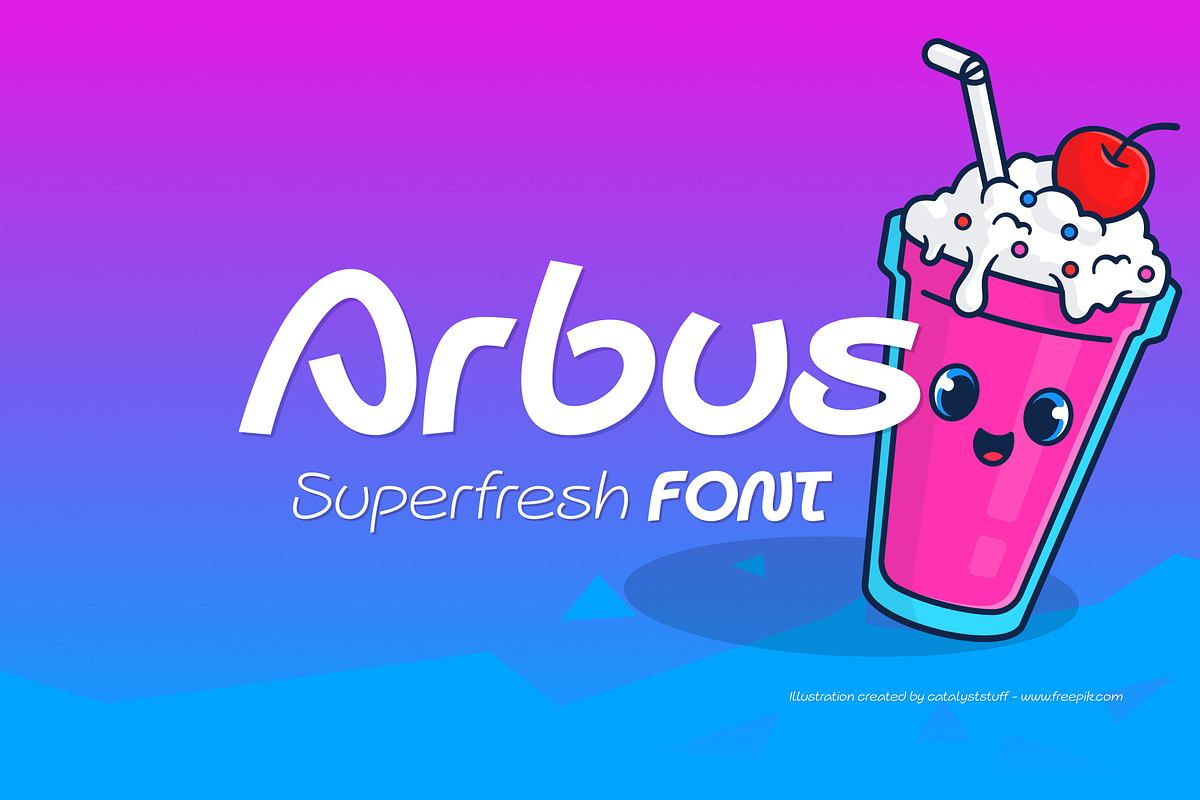
Arbus Light & Funny Childfont Bundle Free Download is a playful and heartwarming collection of typefaces designed especially for kids-focused projects. With light, bouncy strokes and fun character shapes, this font bundle is perfect for storybooks, birthday invitations, classroom posters, educational games, and toy packaging.
Each font in the bundle brings its own joyful personality, making it easy to mix and match for creative, colorful results. Whether you’re working on preschool branding or cheerful digital content, Arbus delivers charm, clarity, and plenty of smiles.
Designers love this bundle for its versatility and kid-friendly feel. Make your next project bright, bold, and full of fun—download Arbus Light & Funny Childfont Bundle Free Download and let your typography play as freely as a child’s imagination.